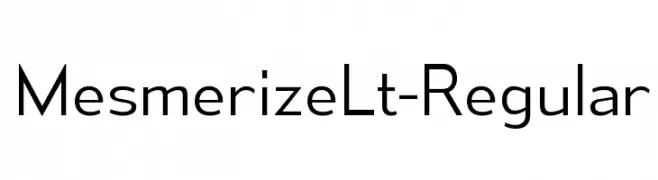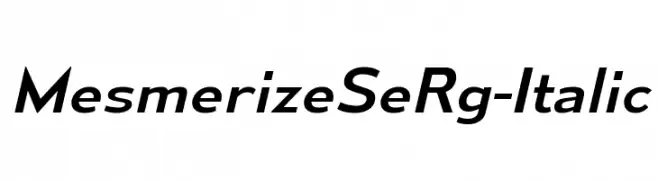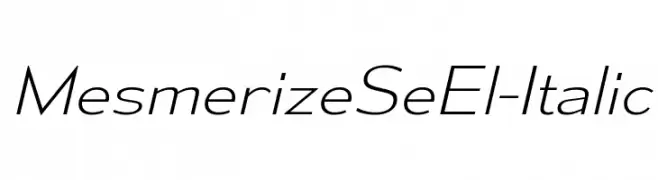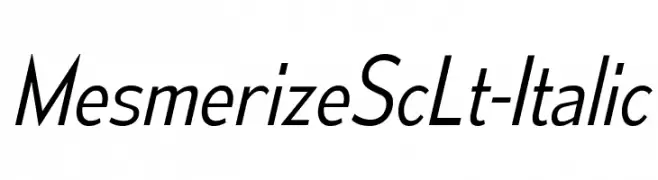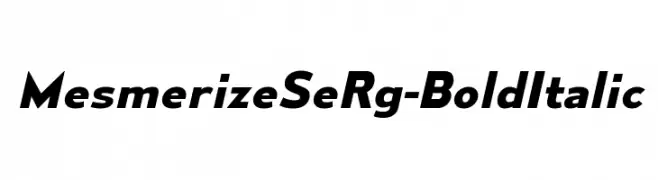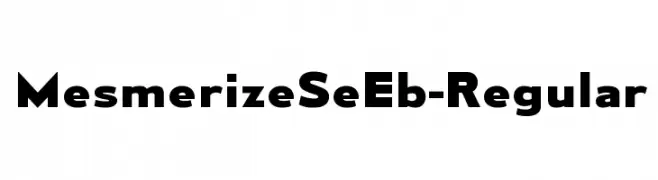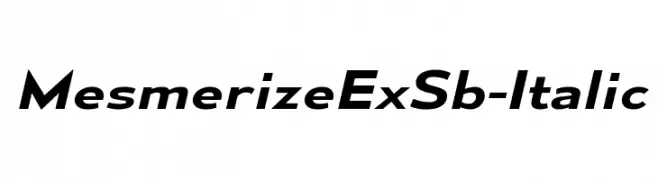
A modern, geometric sans-serif font with clean lines and balanced proportions.
A sleek, modern italic font with a slightly condensed style and elegant slant.
A bold, italicized font with a dynamic and modern style.
A sleek, modern italic font with consistent stroke width and dynamic appearance.
A modern sans-serif font with clean lines and balanced proportions.
A sleek, modern italic font with smooth curves and sharp edges.
A sleek, modern italic font with consistent stroke width and a dynamic appearance.
A bold, italicized font with a dynamic and energetic style.
A bold, modern font with geometric shapes and clean lines.
A sleek, modern italic font with a dynamic and professional appearance.